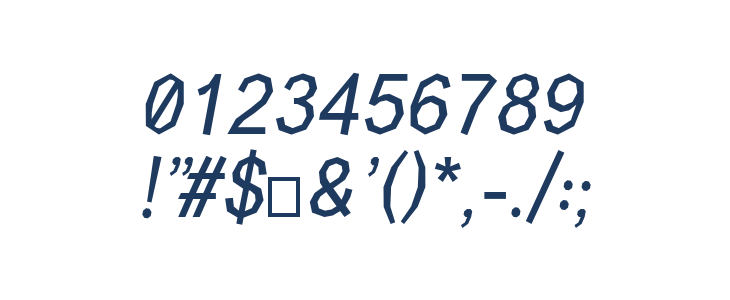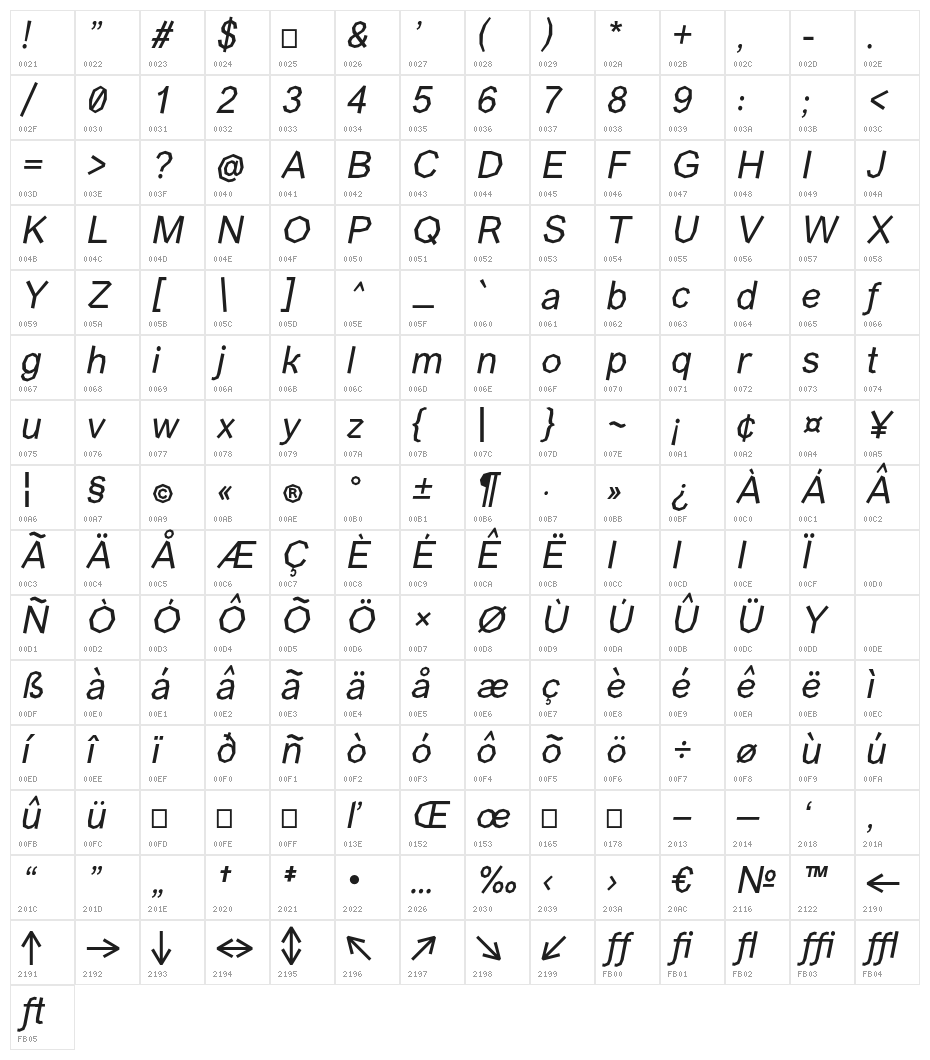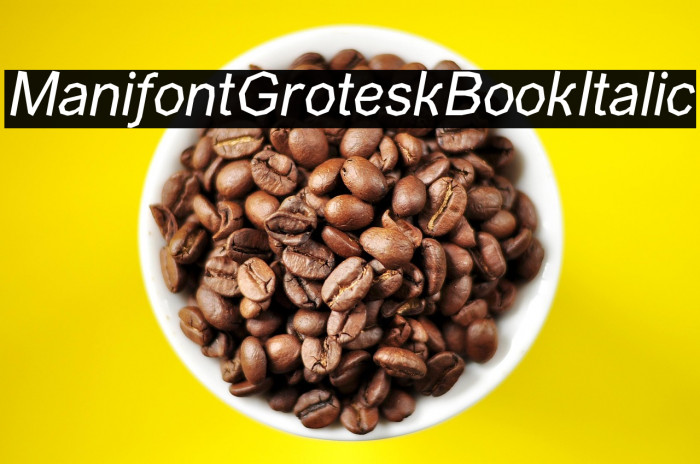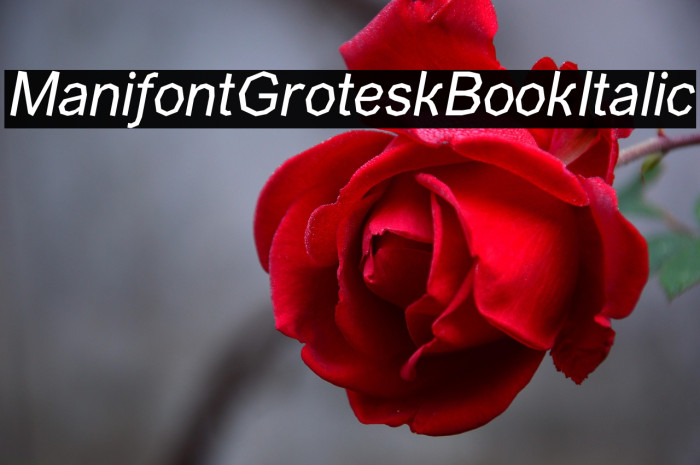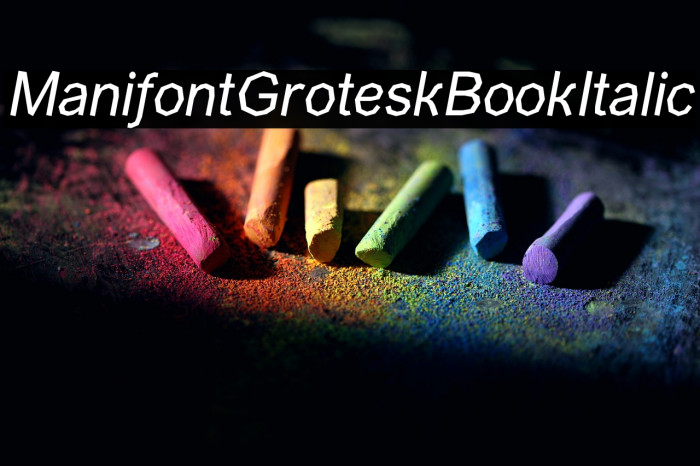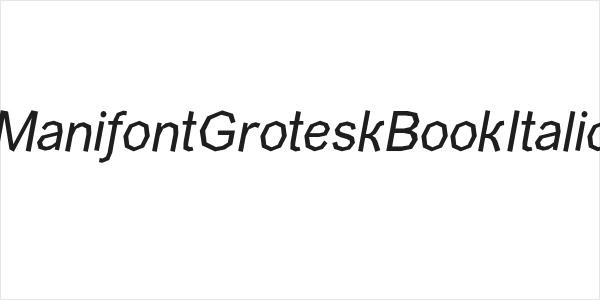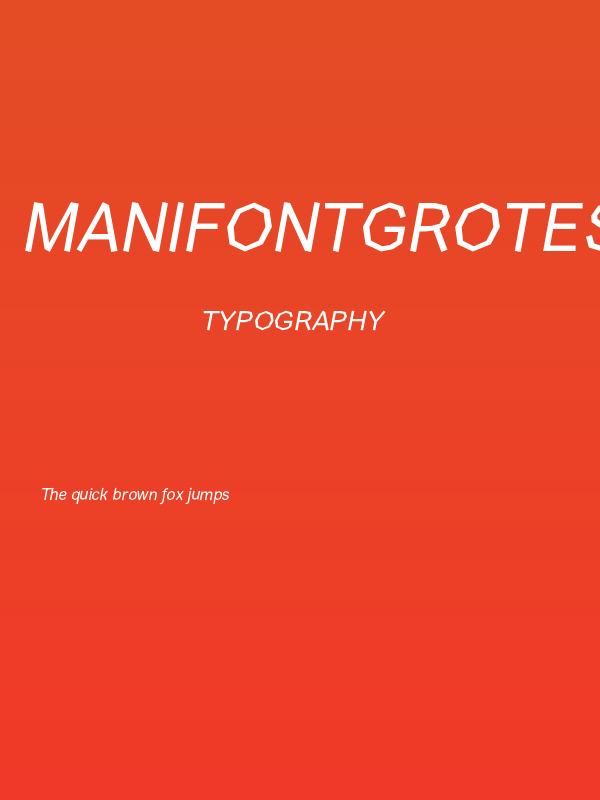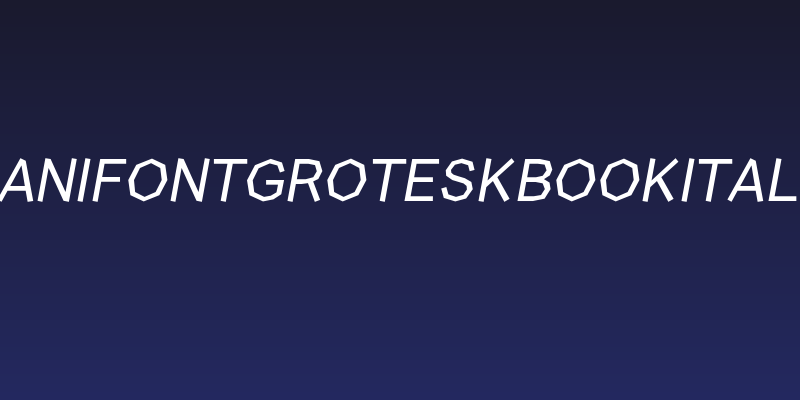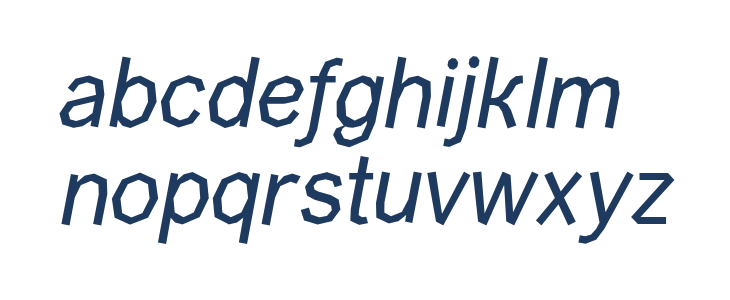
ManifontGroteskBookItalic Font
ManifontGroteskBookItalic Description
This font features a modern and clean design with a slight italic slant, giving it a dynamic and forward-moving appearance. The characters are well-defined with a geometric structure, providing a sense of precision and clarity. The uppercase letters are bold and assertive, while the lowercase letters maintain a consistent style that complements the overall look. The numerals are distinct and easy to read, making them suitable for various applications. Special characters are included, adding versatility to the font's use. The overall style is contemporary, making it ideal for modern design projects.